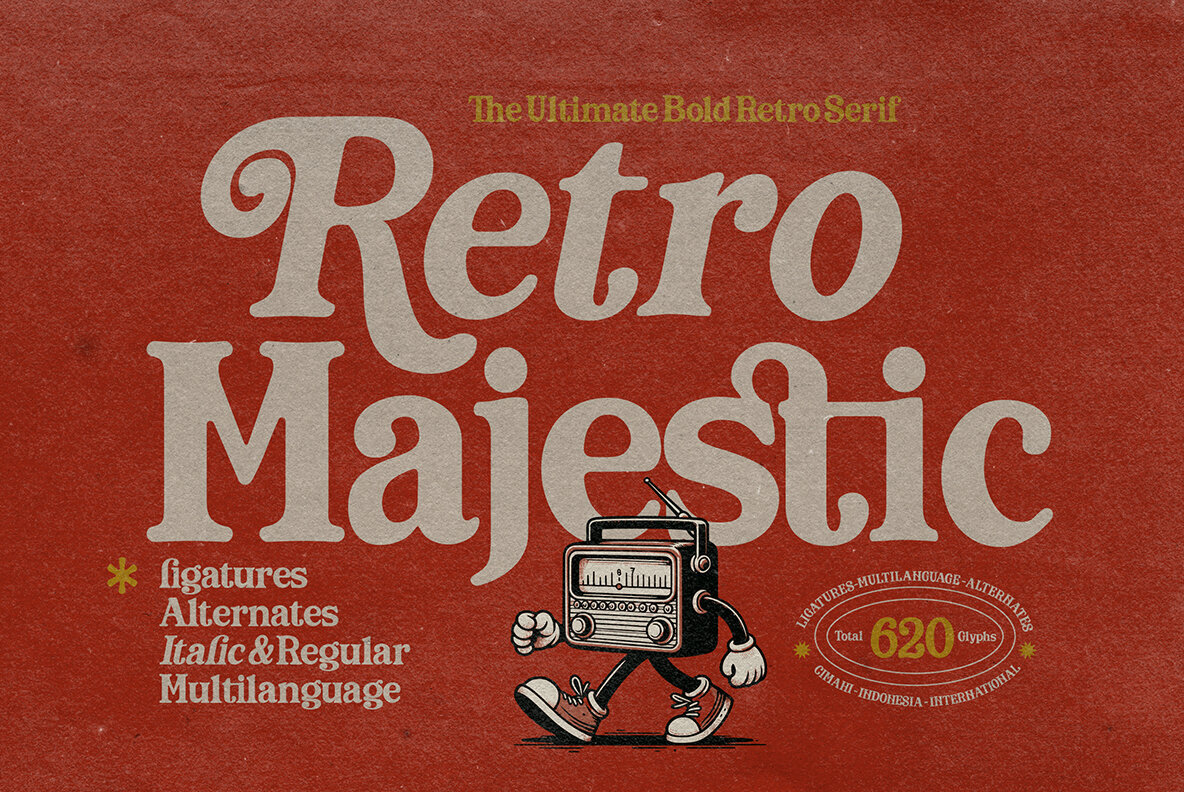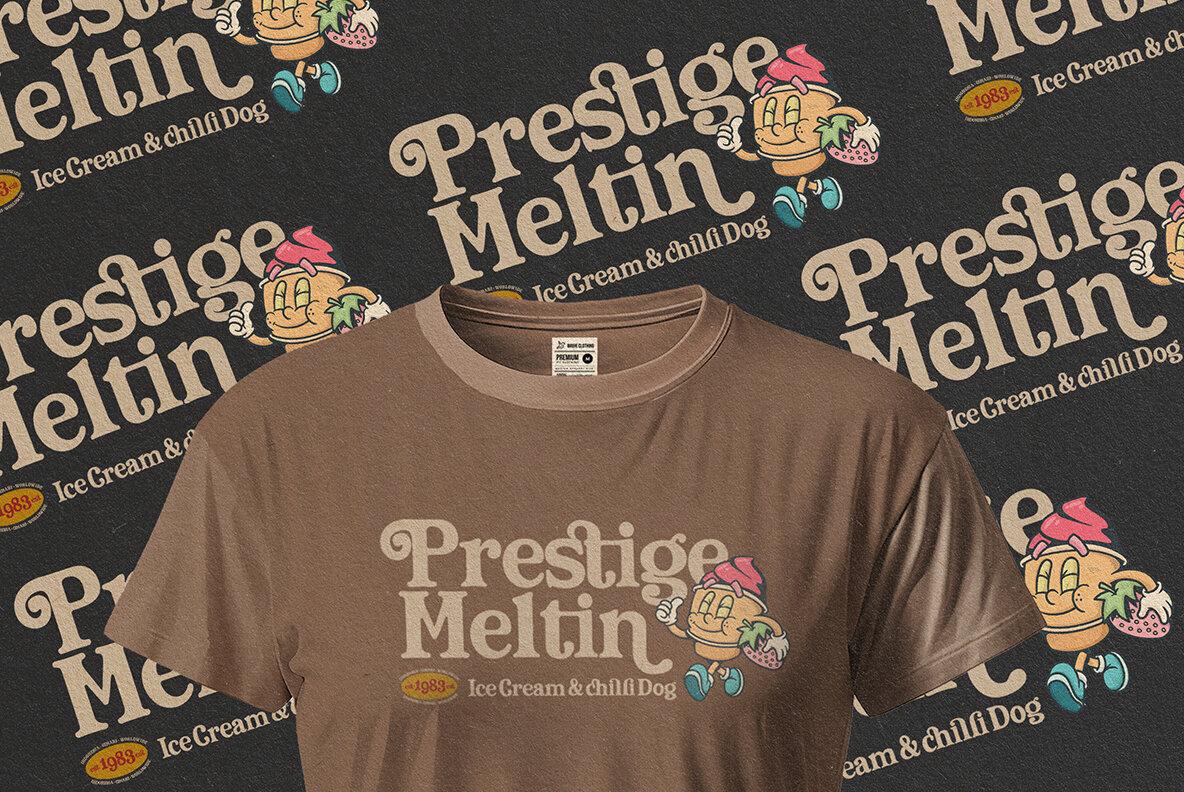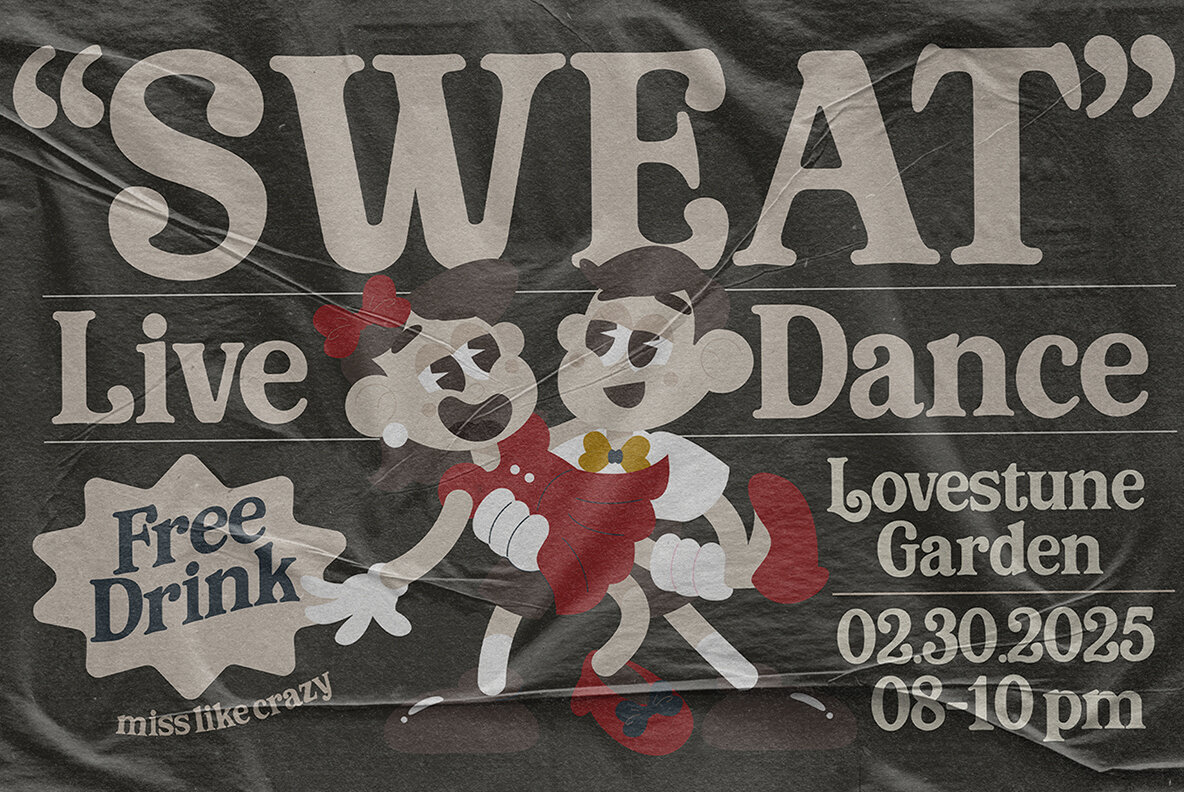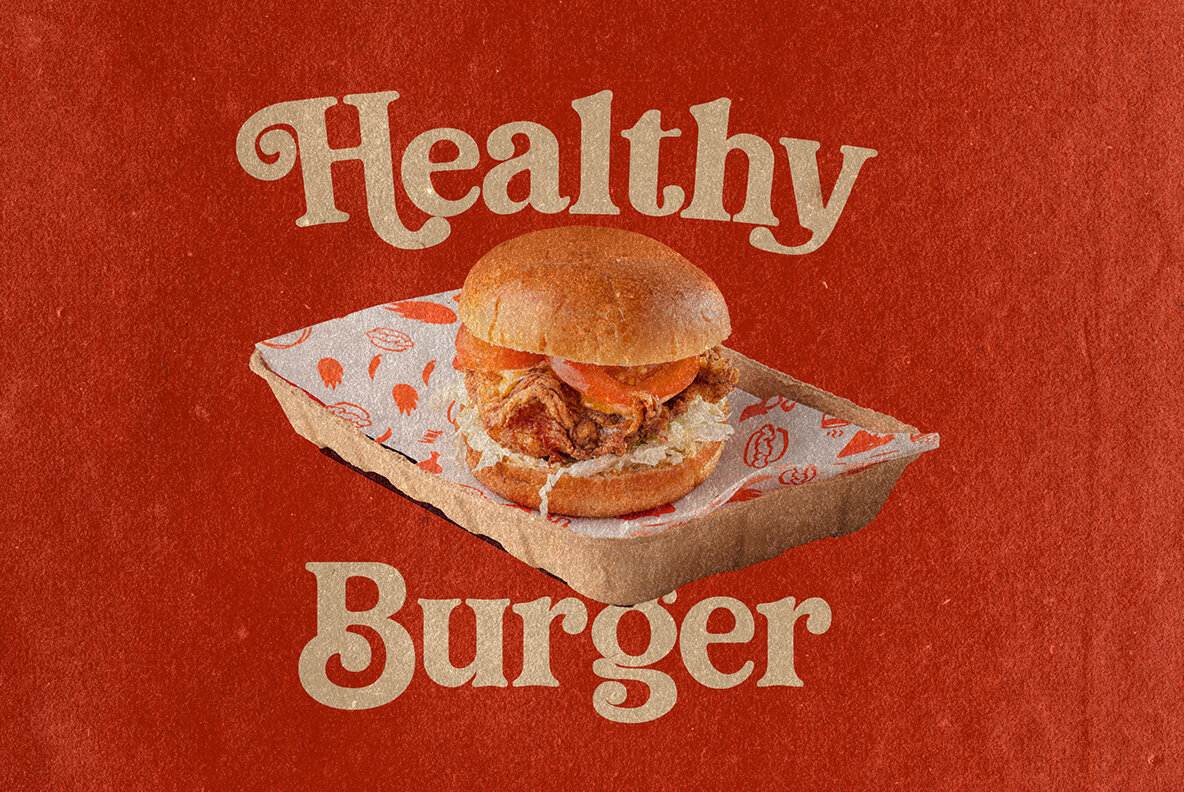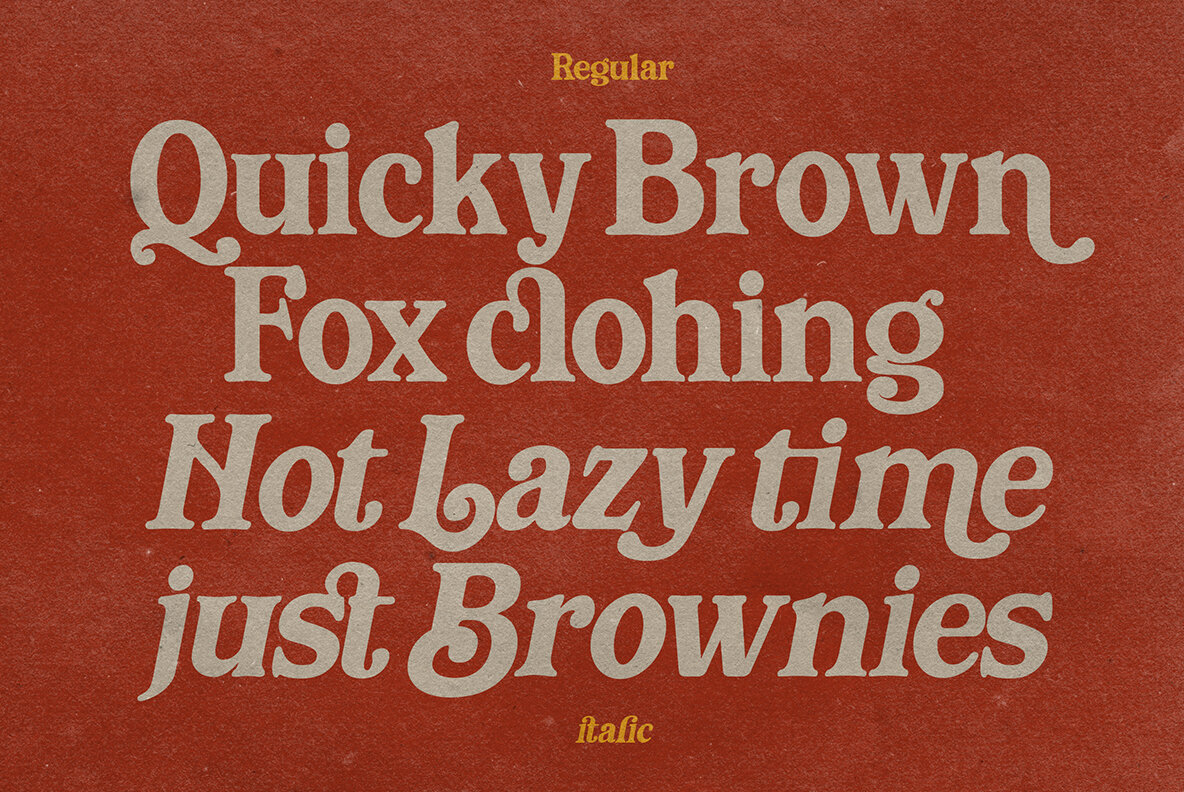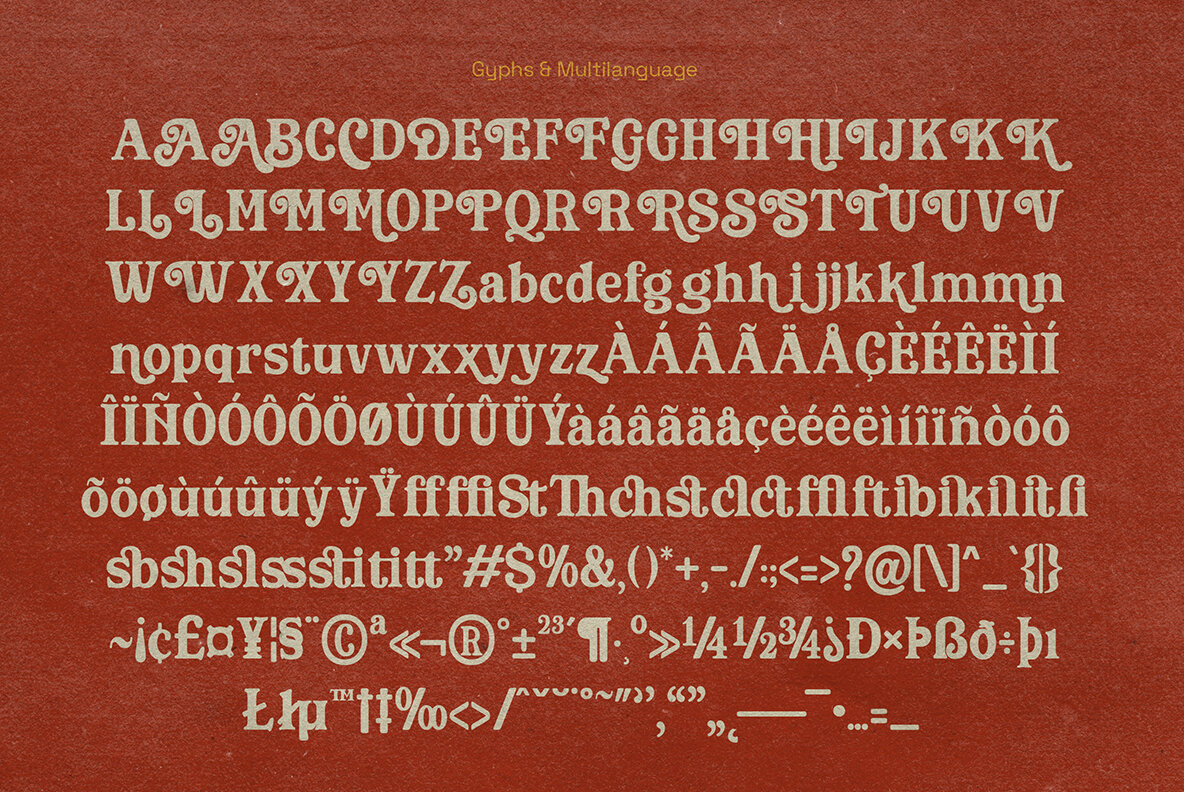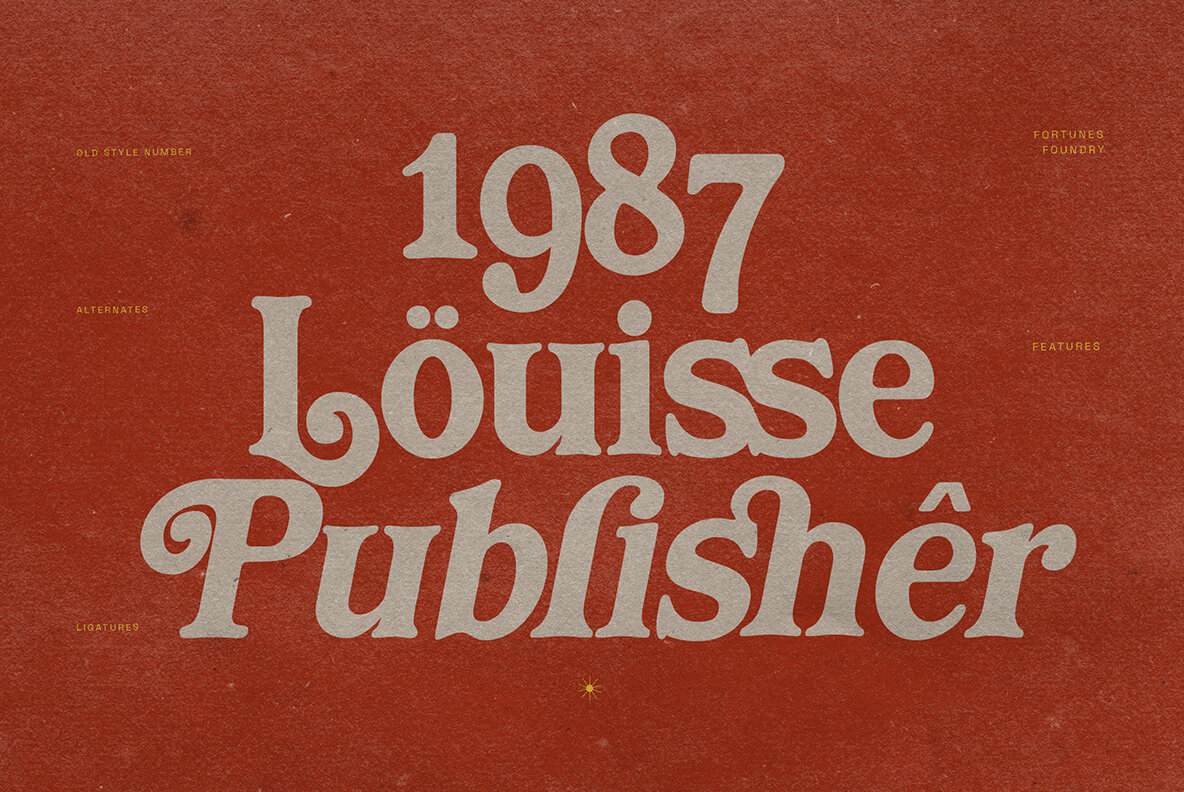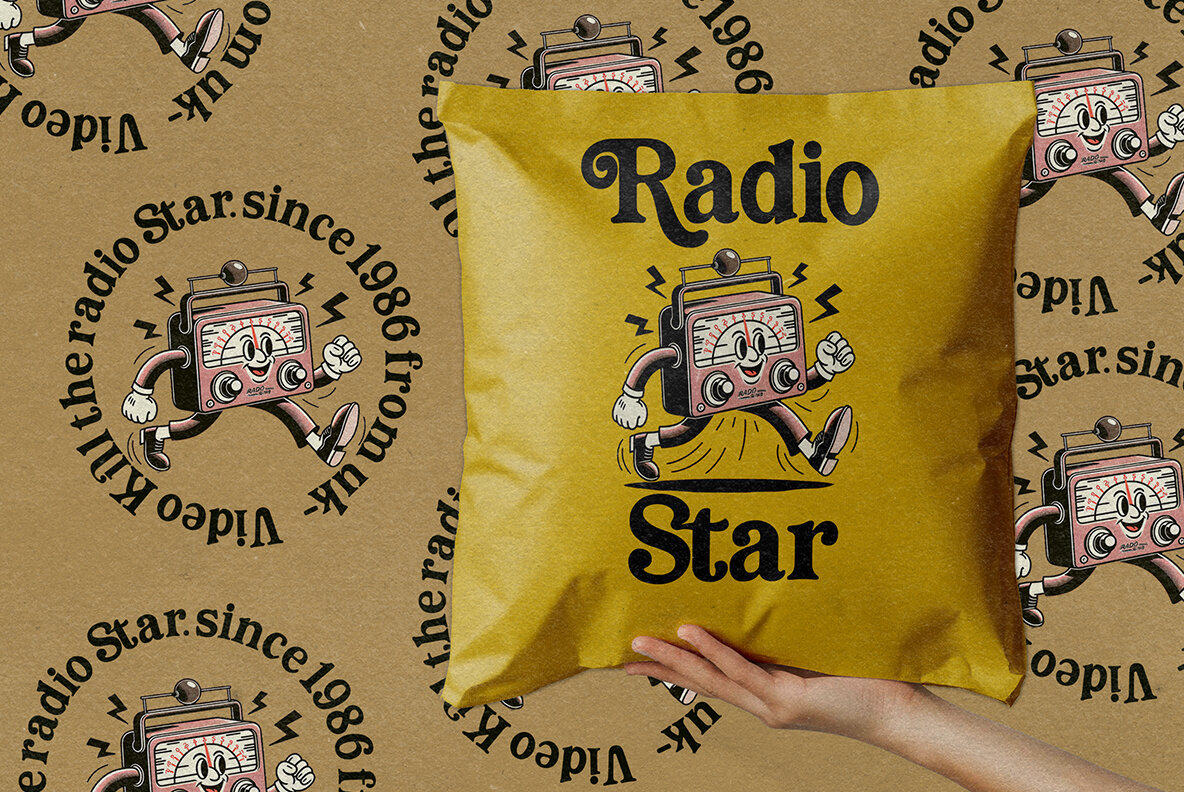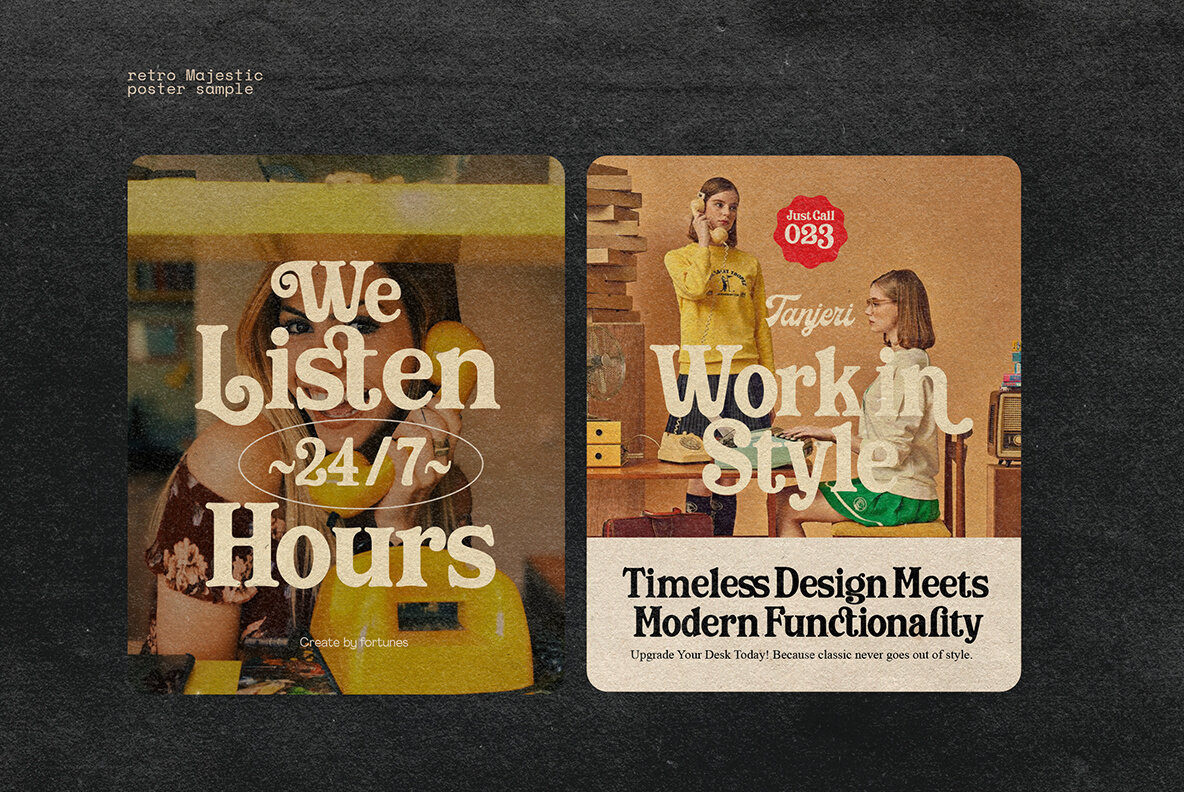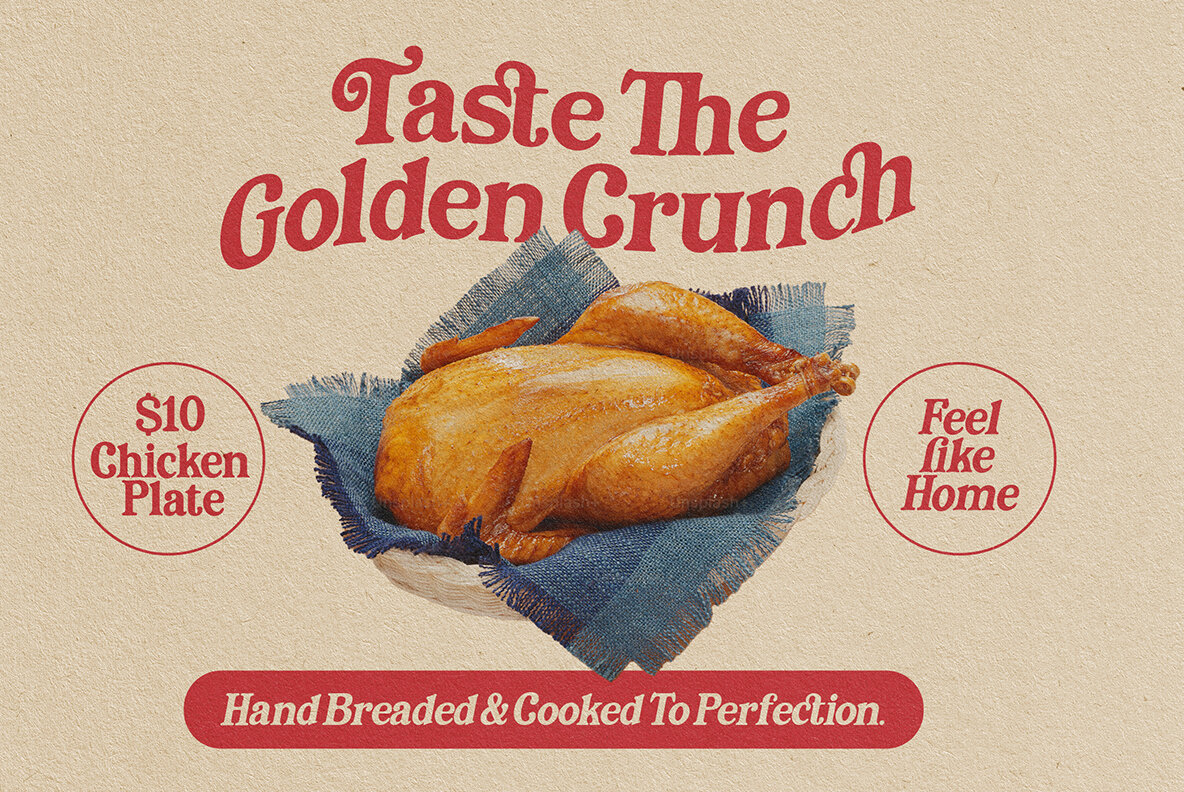
Retro Majestic Font
Retro Majestic is a retro-inspired serif font designed to create eye-catching advertising, bold headlines, and timeless branding. The font combines thick, elegant letterforms and subtle curves to evoke mid-century charm while offering modern versatility. It is ideal for posters, packaging, logos, and editorial design. With high-contrast strokes, smooth edges, and a stylish retro flair, Retro Majestic captures the golden era of advertising, ensuring flawless readability and sophistication.
This typeface includes a range of features that enhance its usability in various design projects, such as both uppercase and lowercase letters, punctuation, numbering, and old style numbers. Additionally, it offers alternates and ligatures, adding a unique touch to your designs. Retro Majestic is perfect for creating a nostalgic brand identity, a classic luxury advertisement, or a bold print campaign. Add timeless elegance to your designs with Retro Majestic.